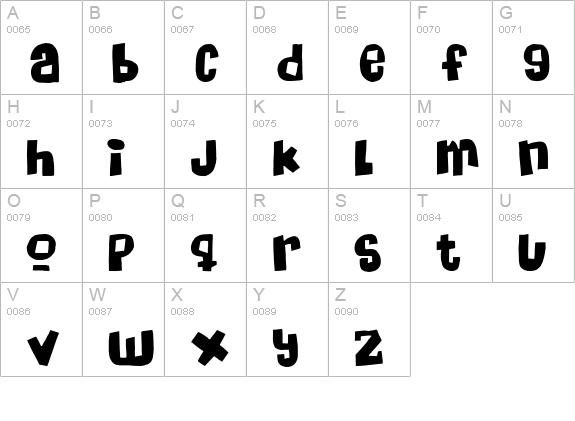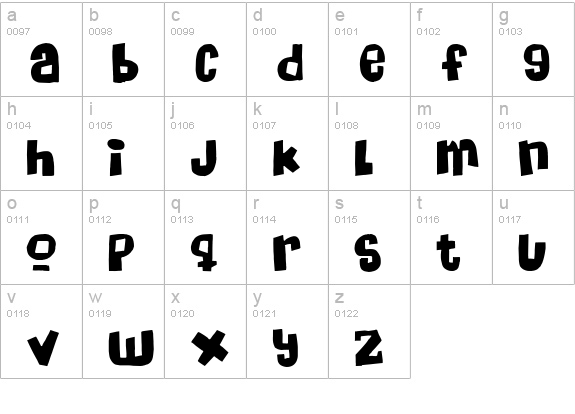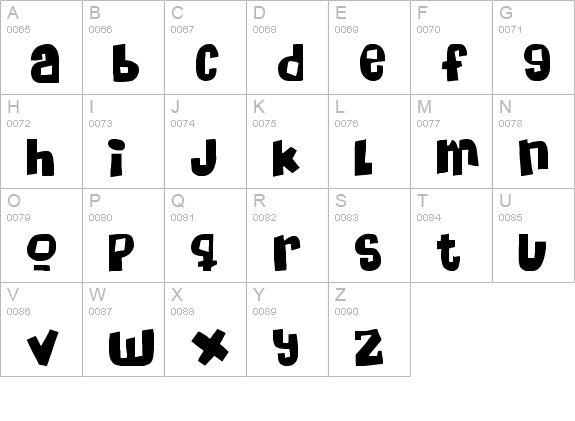
Massive HeadacheII Font Details
Introducing Massive HeadacheII, a captivating and eye-catching font that will leave you in awe. This unique and bold typeface is perfect for adding a touch of personality and impact to any project. With its distinctive, sharp edges and strong presence, Massive HeadacheII is sure to make a lasting impression. This font exudes confidence and strength, making it ideal for branding, logo design, headlines, and more. Its versatility allows it to be used across a wide range of mediums, from digital platforms to print materials. Whether you're designing a poster, website, or packaging, Massive HeadacheII will effortlessly elevate your work to new heights. But what makes Massive HeadacheII even more enticing is that it is available for free! Yes, you read that right. You can download this incredible font without spending a dime. Simply head over to FontsMarket.com, and you'll have access to this gem of a font, ready to enhance your creative endeavors. With its generous availability and stunning aesthetics, Massive HeadacheII is a font that caters to both professionals and enthusiasts alike. Its clean and modern design ensures readability, while its unique flair adds a touch of intrigue. You can trust that your message will be conveyed with clarity and impact using this remarkable typeface. So why settle for ordinary when you can have extraordinary? Download Massive HeadacheII today from FontsMarket.com and unlock a world of creativity. Whether you're a designer, blogger, or simply a font enthusiast, this font will undoubtedly become a valuable addition to your collection. Embrace the power of Massive HeadacheII and let your creativity soar to new heights.